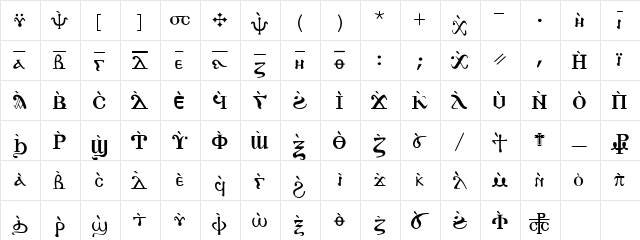
AntoniousJ Jencom
Design Context for AntoniousJ Typeface
AntoniousJ is a composed and adaptable typeface that performs quietly and consistently across a wide range of design contexts.